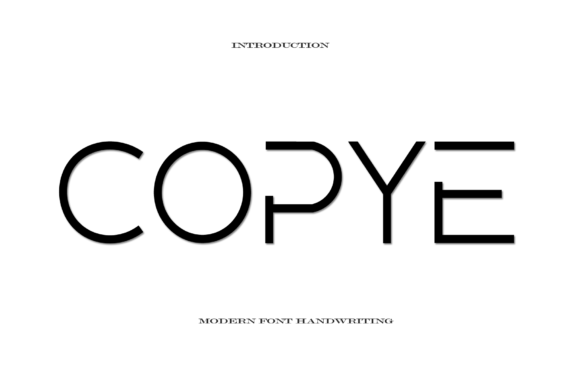
**Introducing the Copye Font: Your Gateway to Captivating Technology**
Step into the realm of digital magnetism with Copye Font, a masterpiece crafted by RR Studio. As a modern sans-serif typeface, Copye exudes an air of sophistication that seamlessly blends with its playful undercurrent. Like a digital chameleon, Copye effortlessly adapts to the latest technological trends, making it the perfect companion for your digital endeavors.
Imagine your website crackling with energy as Copye's clean lines dance across the screen, guiding your audience through your technological masterpiece. Its effortless charm will elevate your brand to new heights, attracting like-minded individuals who appreciate the cutting-edge.
Whether you're crafting a captivating logo, designing a futuristic website, or embarking on a creative project, Copye Font is the ultimate weapon in your digital arsenal. Its versatility knows no bounds, making it a must-have for tech-savvy individuals and designers alike.